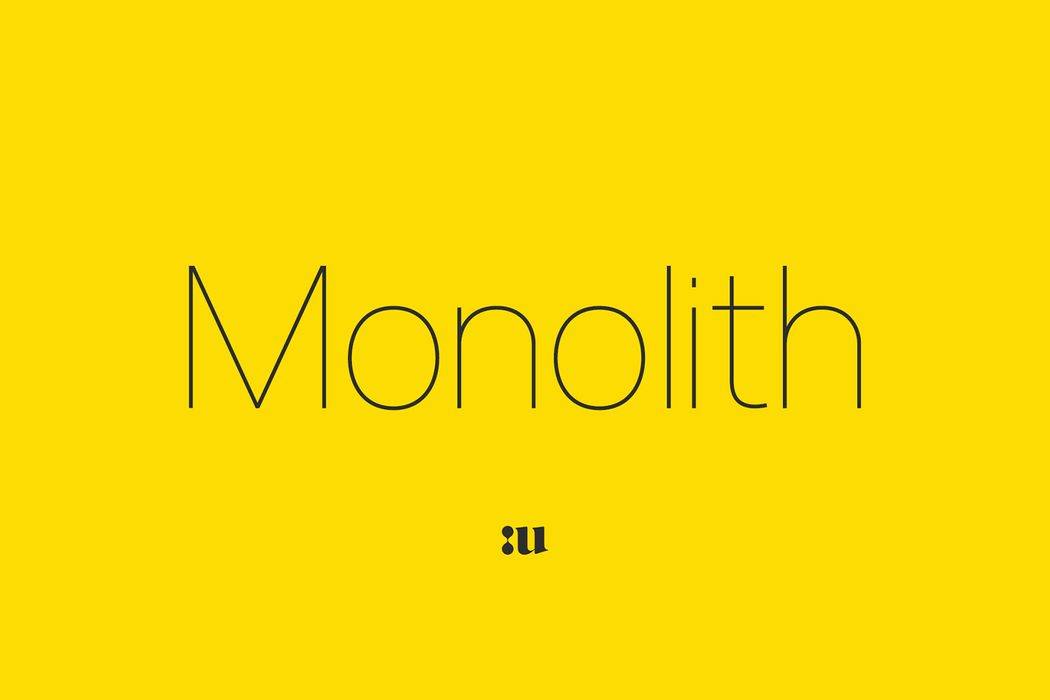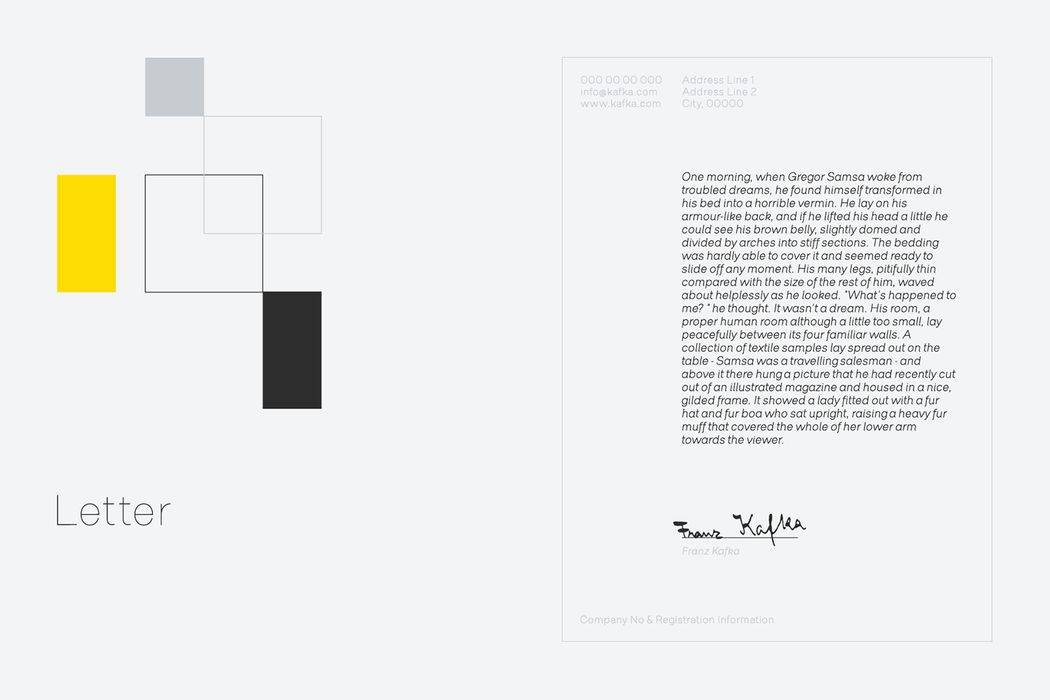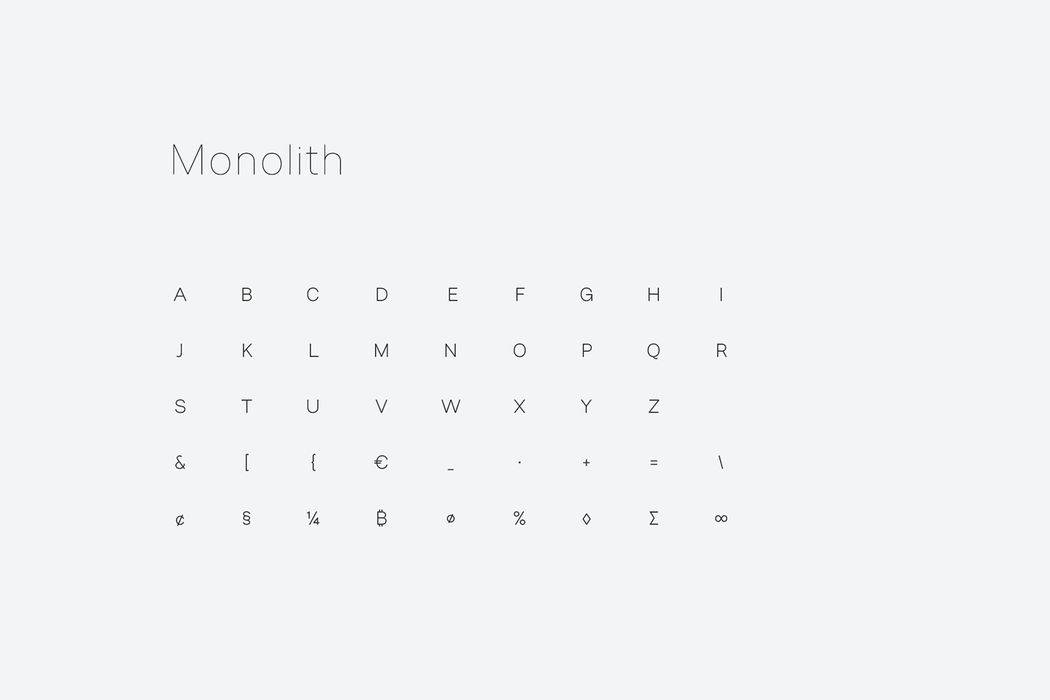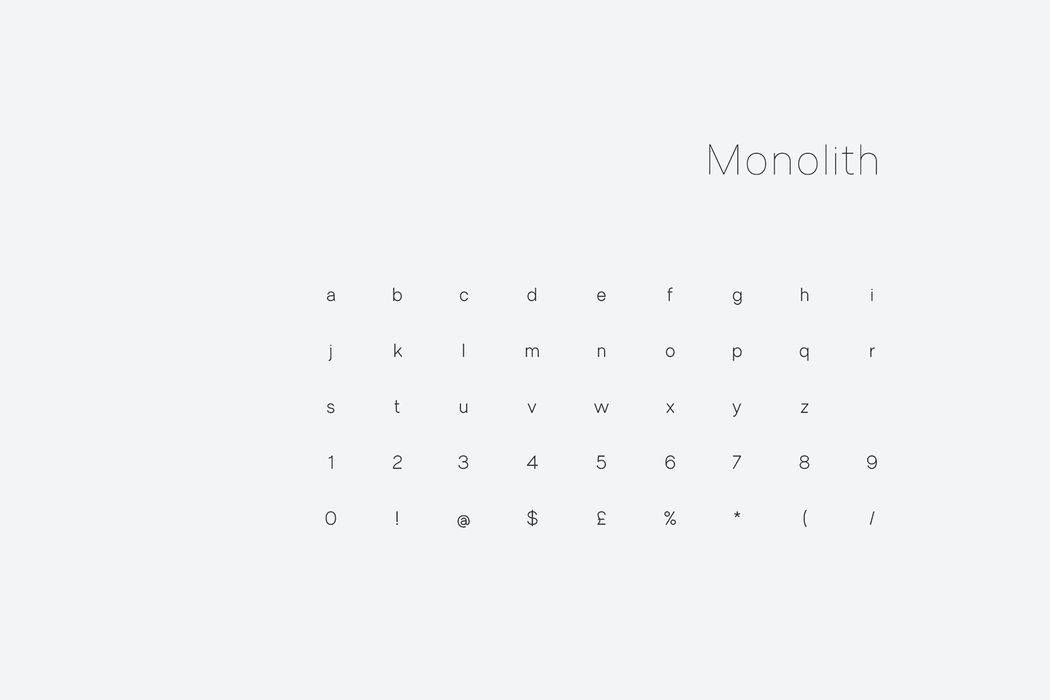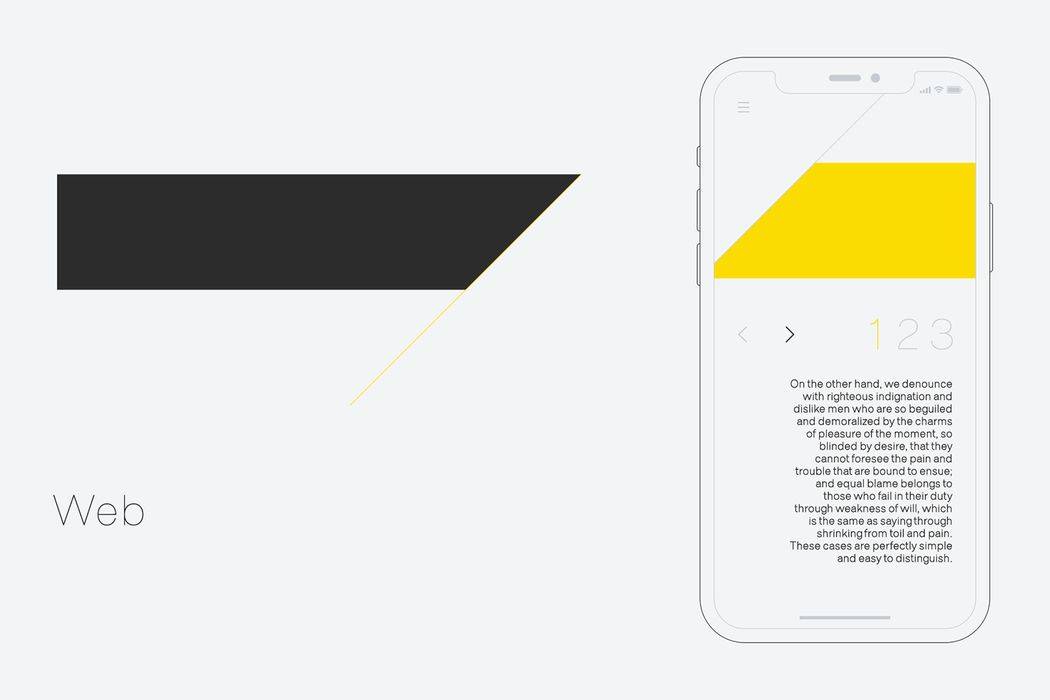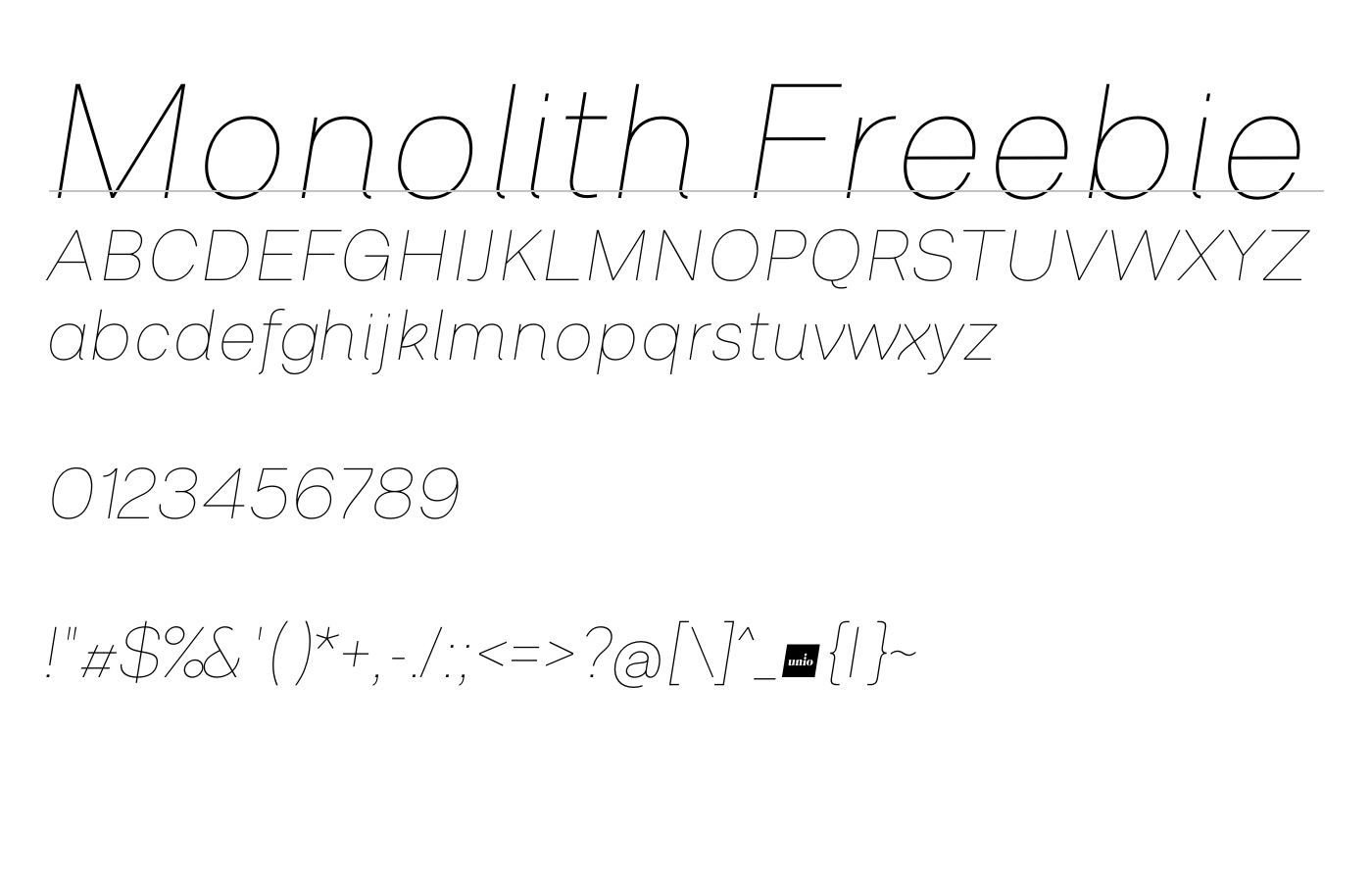
Monolith Sans is a sleek, ultra-light sans serif font characterized by its slender strokes and elegant italic style, giving it a modern and sophisticated appearance. Its narrow proportions and high x-height create a clean, airy feel, making it ideal for stylish editorial designs, contemporary branding, and refined digital interfaces where clarity and minimalism are key. This font’s graceful letterforms and delicate lines bring a sense of understated luxury, perfect for projects aiming to convey elegance and modernity.
| Font family | Monolith Sans Font |
| Release date | 2019-11-04 |
| Designer | Nicola Manzari |